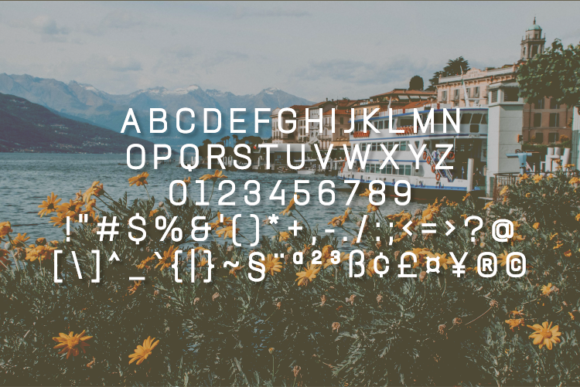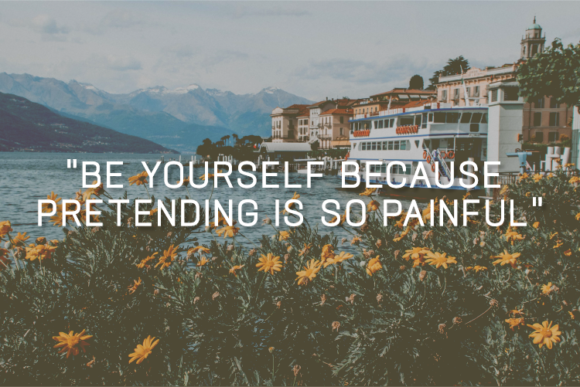
Introduction to Lorreina Font
Have you ever been stuck in a creative rut, staring at a blank canvas, searching for that perfect design element to bring your project to life? It’s a feeling we’ve all been there, and it’s exactly why we’re excited to introduce you to the Lorreina Font. This sleek, modern sans serif font is a game-changer for designers looking to elevate their creative projects.
With its clean lines and minimalist aesthetic, the Lorreina Font is the perfect design resource for any project. Whether you’re working on a high-quality brochure, a website, or even a social media campaign, this font is sure to make your design stand out. And the best part? It’s available for a free download, making it a valuable addition to any designer’s toolkit.
So, what makes the Lorreina Font so special? Its versatility, for starters. With a transparent background and a wide range of font sizes, you can easily match it to your creative vision and watch your project come to life. And with its high-quality design, you can trust that your work will be professional and polished, every time.
Key Features of Lorreina Font
- Comes with a transparent background, allowing for seamless integration with any design.
- Features a clean and modern design, perfect for a wide range of creative projects, from logos to typography.
- Perfect for designers looking for a free and high-quality design resource to elevate their creative project.
Honest Review: Lorreina Font
I recently stumbled upon the Lorreina Font and I must say, it’s a great addition to any design resource. This high-quality font is perfect for creative projects that require a touch of elegance and sophistication.
- ✨ The font is highly customizable, allowing for a wide range of styles and applications.
- ✨ The transparent background makes it easy to integrate into various design elements.
- ✨ The font is available for free download, making it an excellent choice for designers on a budget.
However, I do have a few concerns:
- ⚠️ The font may not be suitable for use in small text sizes, as the lines can become blurry and difficult to read.
- ⚠️ The font’s versatility can also be a limitation, as some designers may find it too generic for their specific project needs.
Overall, I’m impressed with the Lorreina Font. It’s a solid design resource that can elevate any creative project. While it may have some limitations, the benefits far outweigh the drawbacks. If you’re looking for a high-quality font for your next design project, I would definitely recommend giving the Lorreina Font a try.
Lorreina Font
The Lorreina Font is a high-quality design resource ideal for various creative projects. With its unique and elegant style, this font is perfect for adding a touch of sophistication to your designs.
The Lorreina Font is ideal for a variety of creative projects, including:
Logo design
Infographics
Brochures
Business cards
Tips for Getting the Most Out of Lorreina Font
To get the most out of the Lorreina Font, consider the following tips:
Use a transparent background to create a sense of depth and sophistication.
Combine the Lorreina Font with other high-quality design resources for a cohesive look.
Experiment with different font sizes and styles to create visual interest.